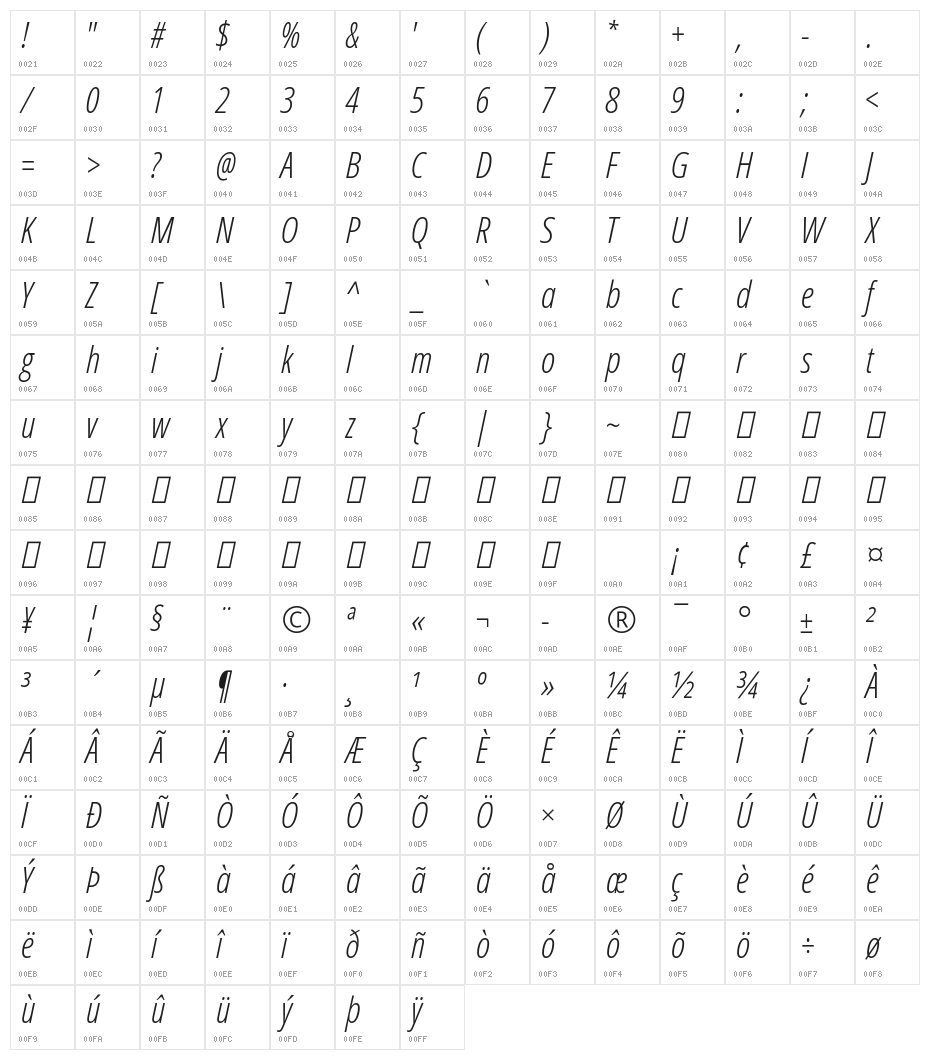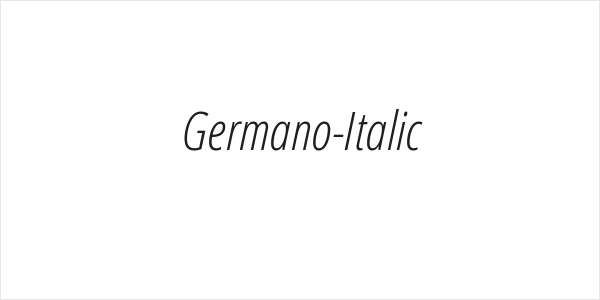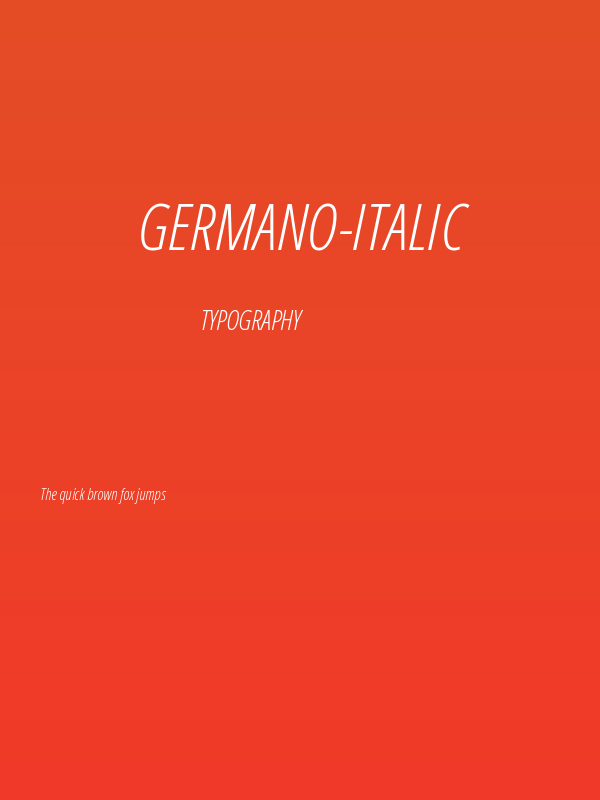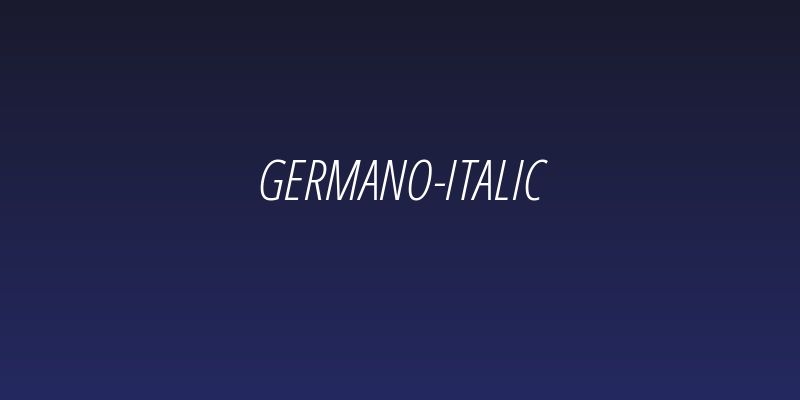
Germano-Italic Font
Germano-Italic Description
This font features a sleek and modern italic style, characterized by its clean lines and smooth curves. The letters are slightly slanted, adding a dynamic and elegant touch to the overall appearance. The uppercase and lowercase letters maintain a consistent style, with a slight variation in stroke thickness that adds subtle contrast. The numerals are clear and legible, matching the style of the alphabetic characters. Special characters are well-integrated, maintaining the font's cohesive look. This font is versatile, suitable for a variety of design projects that require a contemporary and sophisticated aesthetic.
| Proposed Projects | Ideal for branding, editorial design, advertising, and digital media projects. |